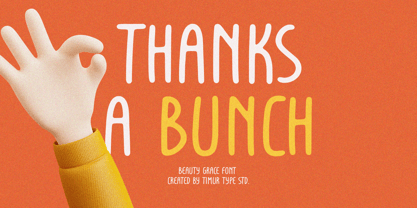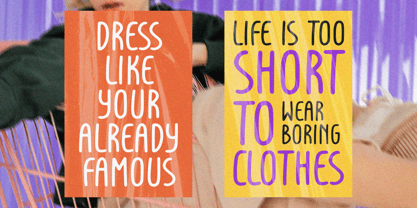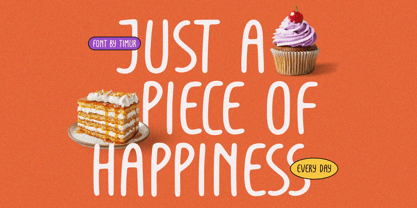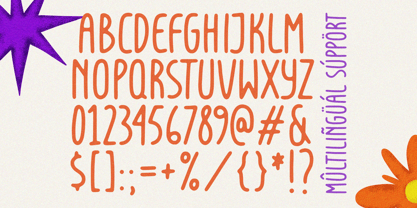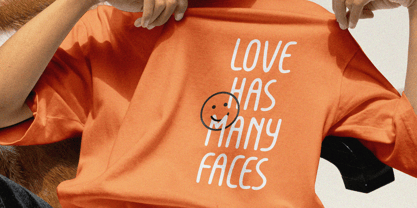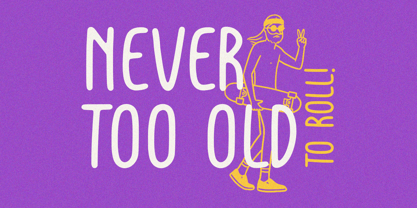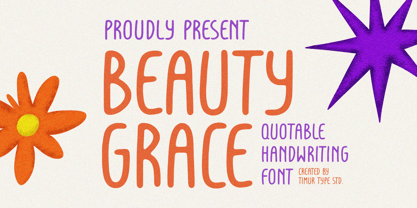
Beauty Grace
by Timurtype
The Beauty Grace Font Family was designed by Wara Sigit Tri Pamungkas and published by Timurtype. Beauty Grace contains 1 styles.
Introduced by Timurtype Studio!
Beauty Grace is a Quotable Handwriting Font
This font is an elegant and versatile handwriting display font, perfect for creating stunning quotes, logos, invitations, and branding materials. Its smooth curves and natural flow mimic the charm of handwritten text, adding a touch of sophistication and warmth to any design.
Beauty Grace Font also supports multilingualism
Designers: Wara Sigit Tri Pamungkas
Publisher: Timurtype
Foundry: Timurtype